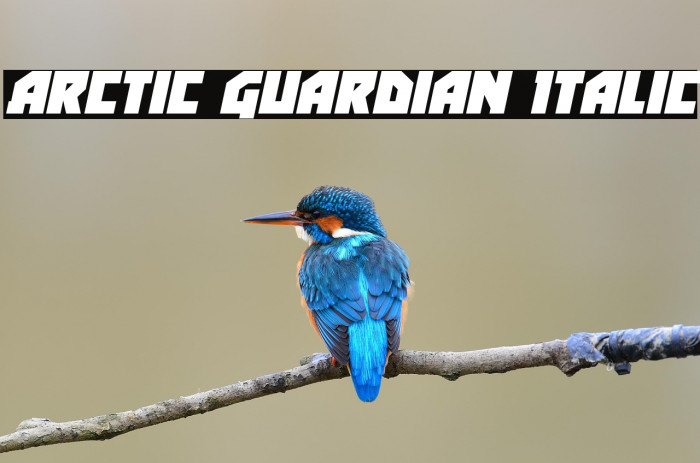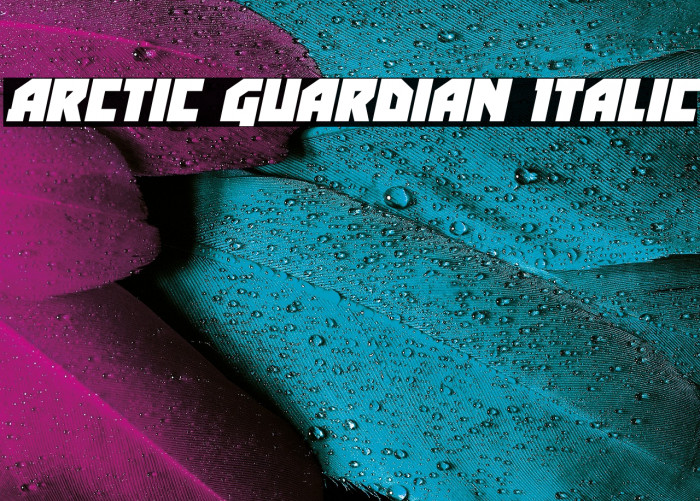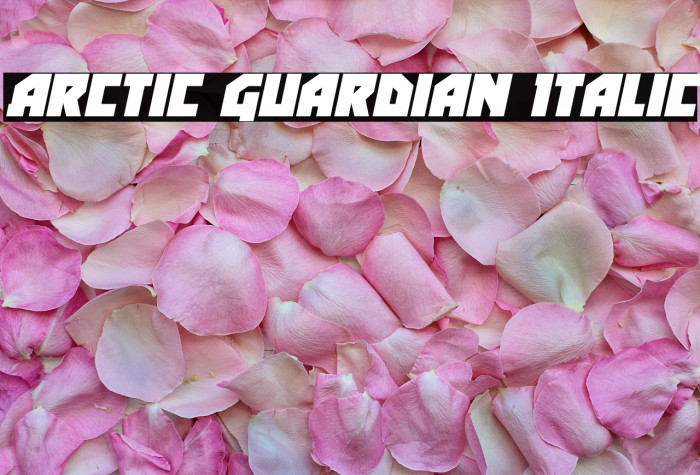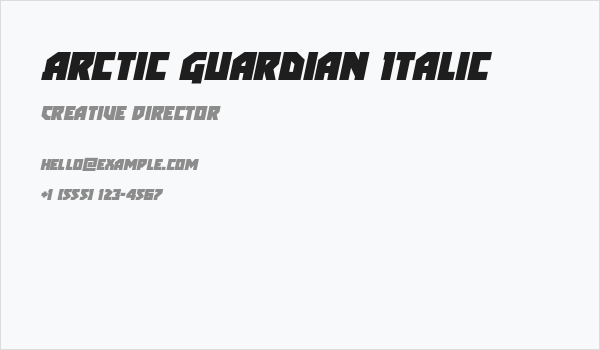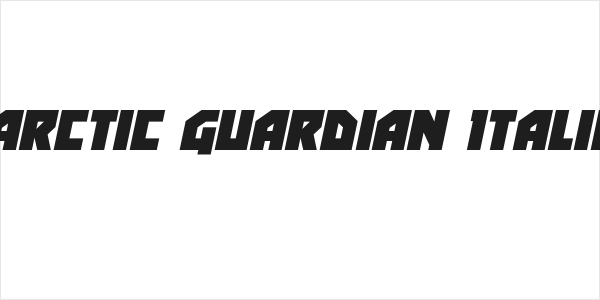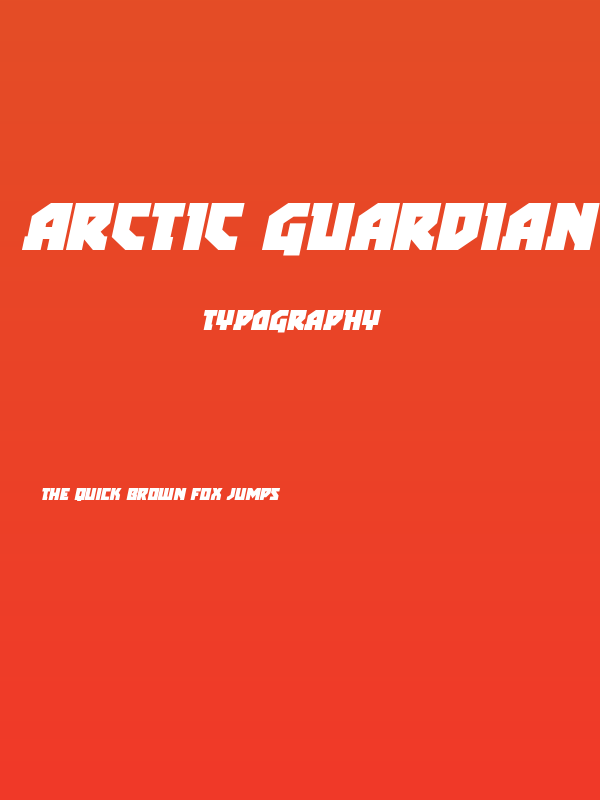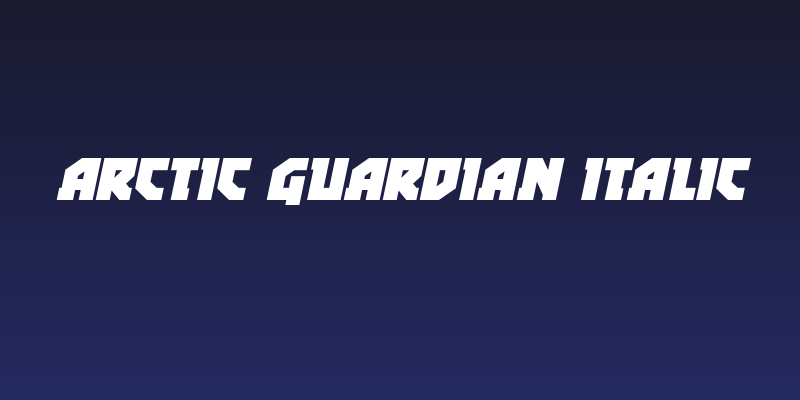
Arctic Guardian Italic Font
Arctic Guardian Italic Description
This font exhibits a bold and dynamic style with sharp, angular edges and a strong geometric influence. The characters are heavily stylized, featuring a consistent slant that adds a sense of motion and energy. The uppercase and lowercase letters maintain a cohesive design, with the uppercase being particularly striking due to their blocky, robust forms. Numbers and special characters follow the same design principles, ensuring uniformity across the typeface. The font's aggressive and futuristic appearance makes it ideal for projects that require a strong visual impact.
| Overall Style | Futuristic, Dynamic |
| Proposed Projects | Ideal for video game titles, sci-fi movie posters, sports branding, and dynamic logo designs. |